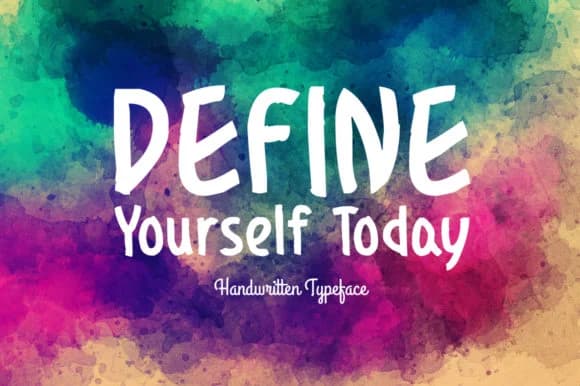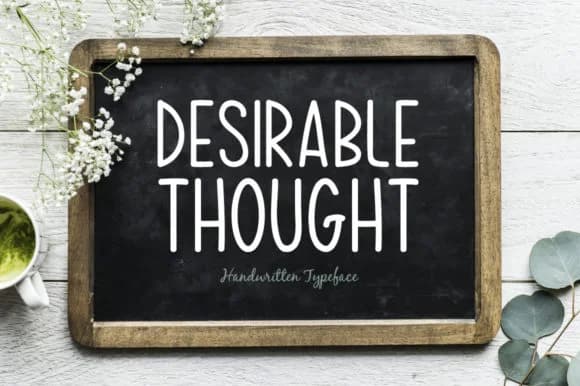
Shadowmoor, from Spanking Fonts, is a handwritten script that bridges casual elegance and structural clarity. The letters flow with natural curves and consistent baseline weight throughout, creating letterforms that remain legible even when set at smaller sizes. This balance is uncommon in script typefaces, where designers often sacrifice readability for ornamental flourish, making Shadowmoor a genuinely practical choice for applications that demand both visual personality and professional function.
The font shines across branding and stationery contexts. Wedding invitation suites gain sophisticated warmth from its approachable yet refined character. Greeting card sets, boutique product labels, hand-lettered event programs, and decorative signage all work beautifully with Shadowmoor's flowing strokes and steady baseline. The design translates equally well to digital spaces like blog headers, social media graphics, and website accent text, where you need visual warmth without sacrificing scannability or legibility. Consistent stroke weight keeps the typeface crisp and readable whether printed on premium cardstock, laser engraved, or rendered across screens and devices.
Shadowmoor is best suited for designers who are creating contemporary, cohesive brand identities and stationery systems where handwritten warmth has real value but professionalism remains non-negotiable. Find it on Creative Fabrica and incorporate this typeface into your next branding project.
Shadowmoor Font is a script font that shines as a display or heading face. Pair it with a clean sans-serif or serif font for body text β the contrast creates a clear hierarchy while the two styles stay balanced and easy to read.